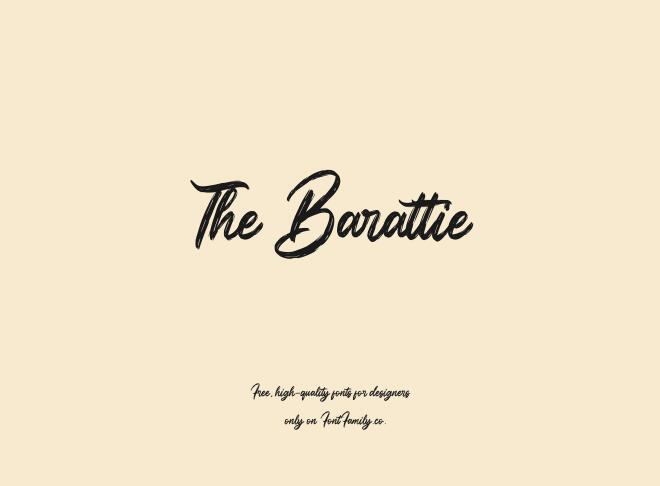
The Barattie Font
The Barattie Font is a sophisticated blend of modern and retro design, offering a unique handwriting script style. Perfectly suited for branding, logos, web design, and print projects, it brings a touch of elegance and creativity to any design work. Its smooth curves and flowing letterforms are reminiscent of classic script fonts, yet with a modern twist that sets it apart. The Barattie Font is comparable to well-known fonts such as 'Brush Script' and 'Freestyle Script', but offers a more refined and modern aesthetic. Its versatility and distinct style make it an excellent choice for designers looking for a unique and elegant font. With its Open Font License, it is free to use for both personal and commercial projects, making it a valuable addition to any designer's toolkit.